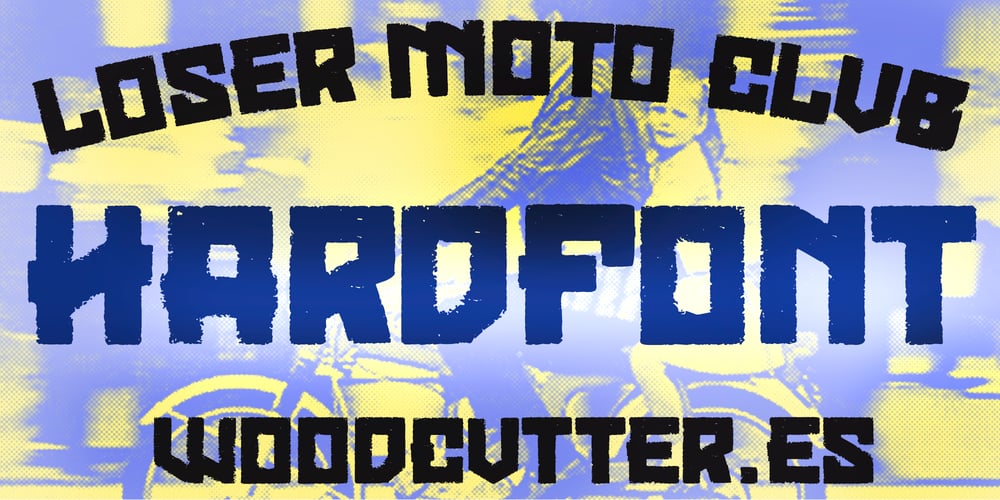
Loser Moto Club Font Family was designed by Jordi Manero and published by Woodcutter. Loser Moto Club contains 1 styles and family package options. “Loser Moto Club” is an uppercase font that captures a distinctive Soviet aesthetic. Its letters are bold and solid, evoking the strength and propaganda of the Soviet era, but with a modern twist. The letter outlines are worn and distressed, as if eroded by time, adding a touch of rebellion and decay. This typeface is perfect for projects seeking a retro-futuristic style with a hint of defiance and nostalgia. Ideal for posters, logos, and any design needing a strong visual impact and uncompromising style.